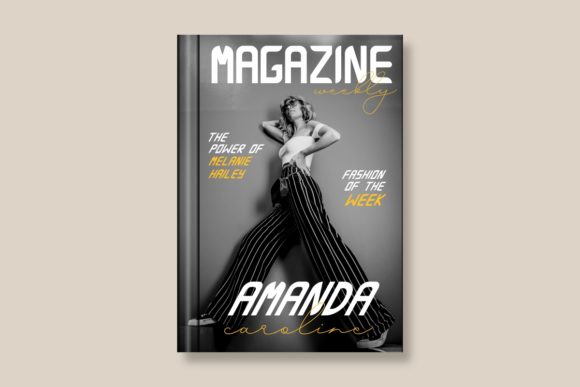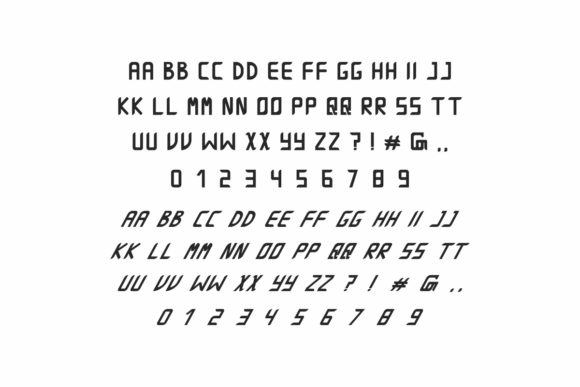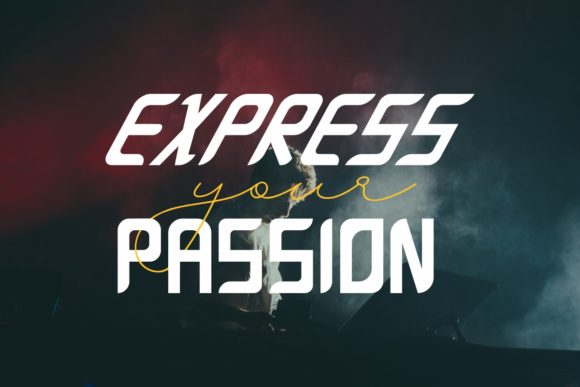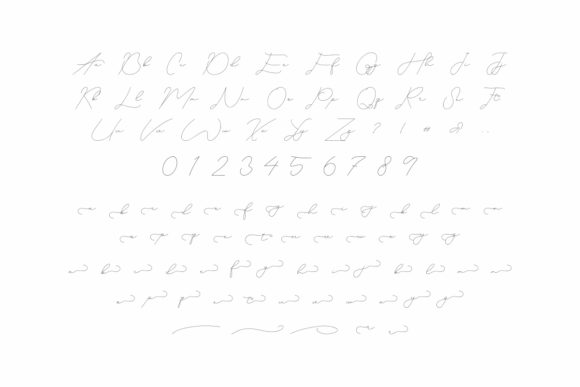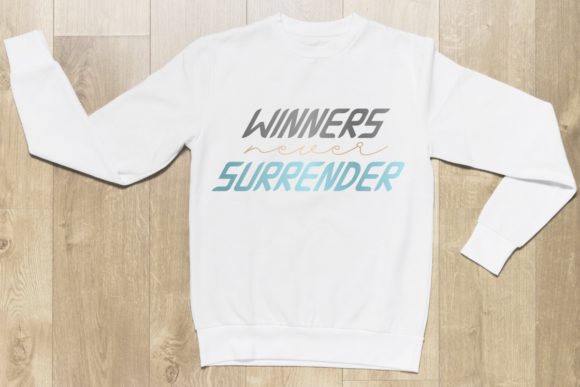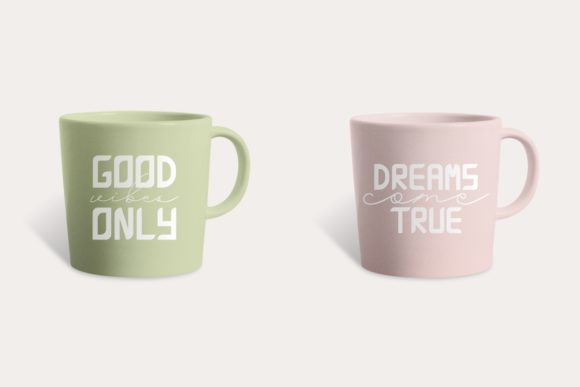
Agrandize Font: Elevate Your Creative Projects with this Stunning Duo Font
Are you tired of using the same old fonts in your creative projects? Look no further than Agrandize, a unique and incredibly interesting duo font that combines the elegance of script with the modernity of sans serif. Masterfully designed to become a true favorite, Agrandize has the potential to bring each of your creative ideas to the highest level!
What Makes Agrandize Font So Special?
Agrandize is not just a font, it’s a font duo that offers the best of both worlds. The script font is perfect for adding a touch of elegance and sophistication to your designs, while the sans serif font provides a clean and modern contrast. This versatile duo font is perfect for a wide range of creative projects, from branding and advertising to packaging and digital design.
Key Features of Agrandize Font
- Unique and Modern Design: Agrandize font boasts a fresh and contemporary design that will make your projects stand out from the crowd.
- Script and Sans Serif Combination: The duo font combination offers the perfect balance of elegance and modernity, making it suitable for a wide range of design applications.
- Highly Legible: The sans serif font is optimized for readability, making it perfect for body text, while the script font adds a touch of personality to headings and titles.
Use Cases for Agrandize Font
Agrandize font is perfect for a wide range of creative projects, including:
- Branding and Identity: Use Agrandize font to create stunning logos, business cards, and letterheads that reflect your brand’s personality.
- Advertising and Marketing: Make your ads stand out with Agrandize font’s unique and modern design.
- Packaging Design: Add a touch of elegance and sophistication to your product packaging with Agrandize font.
- Digital Design: Use Agrandize font to create engaging and modern digital experiences, from websites to social media graphics.
Tips for Using Agrandize Font Effectively
To get the most out of Agrandize font, here are some tips to keep in mind:
- Mix and Match: Experiment with different font combinations to find the perfect balance of script and sans serif.
- Play with Size and Color: Use size and color to create visual hierarchy and add emphasis to your designs.
- Keep it Simple: Don’t be afraid to keep your designs simple and clean – Agrandize font’s modern design speaks for itself.